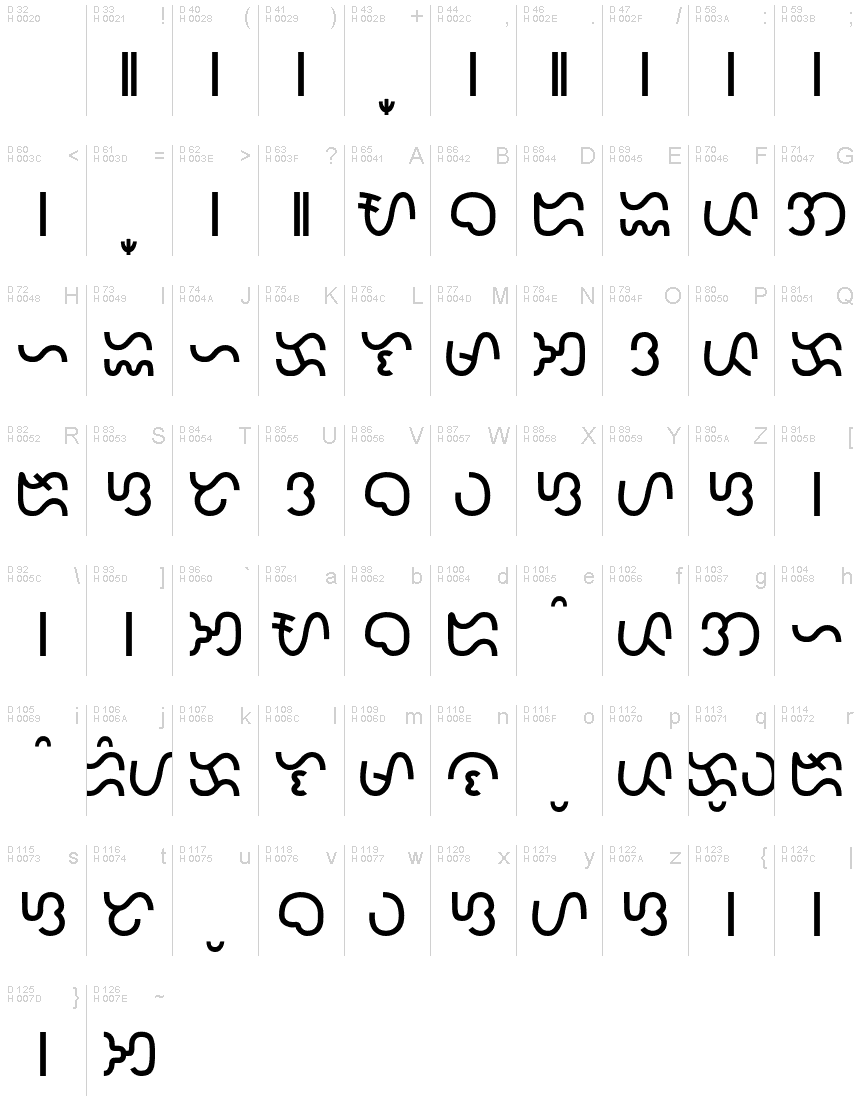
Taal Sans Serif by Lou Mancilla is a free alien dingbat font built from smooth looping symbols and clipped angular marks. Most forms use clean monoline strokes with broad curves, tight hooks, and open interiors. The mix feels like an invented writing system rather than conventional lettering.
A science-fiction game studio or experimental music label could use these signs for branding, packaging, interface graphics, and merchandise because they resemble coded emblems. They suit alien languages, futuristic puzzles, and mysterious technology themes.
Taal Sans Serif
Lou Mancilla